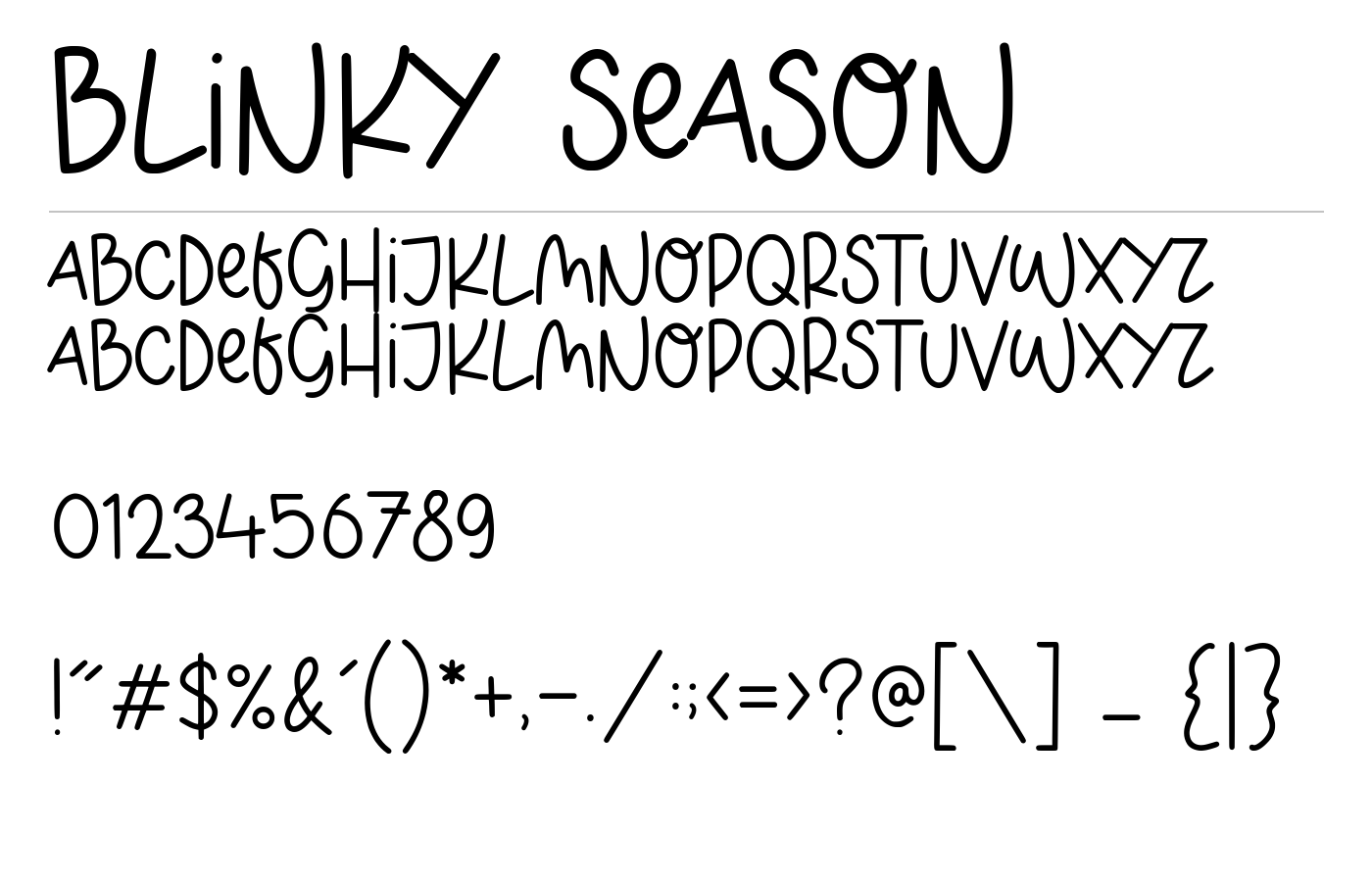
BLINKY SEASON is a playful and casual handwritten sans serif font with a lively, irregular style that brings a friendly and approachable feel. Its thin strokes and tall, narrow letterforms create an airy, informal look perfect for creative projects, kids’ branding, or personal invitations. This font works well in headings, logos, and fun editorial designs where a lighthearted, whimsical touch is desired.
BLINKY SEASON Font
About BLINKY SEASON Font